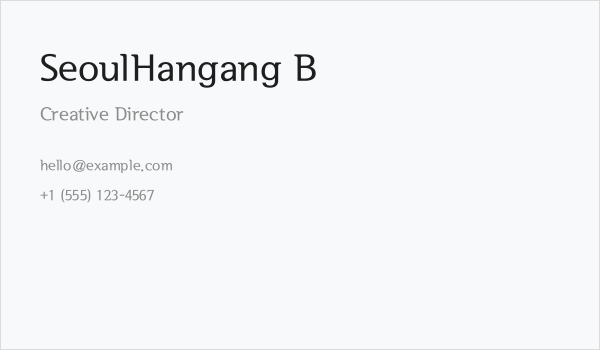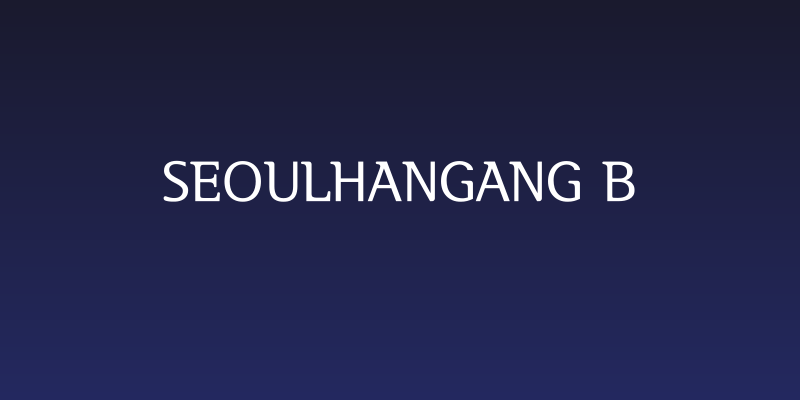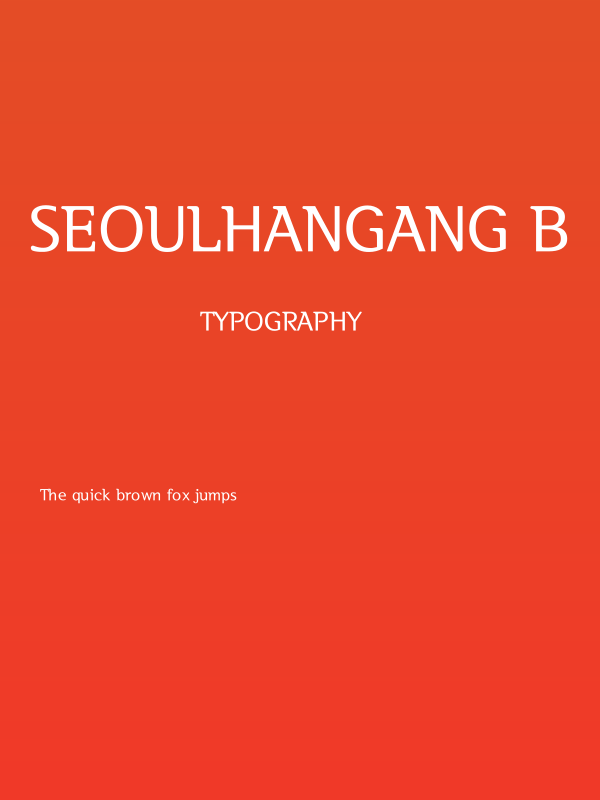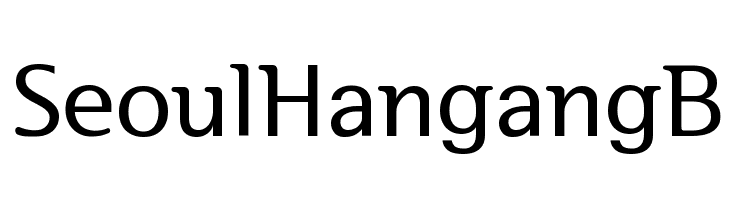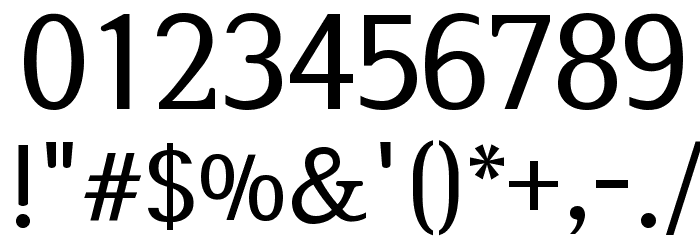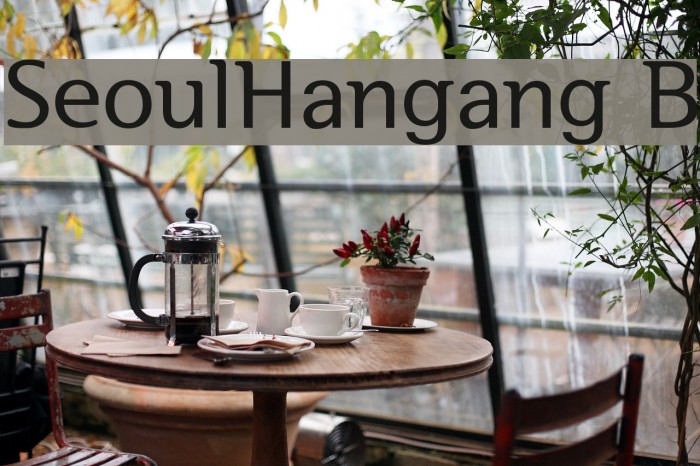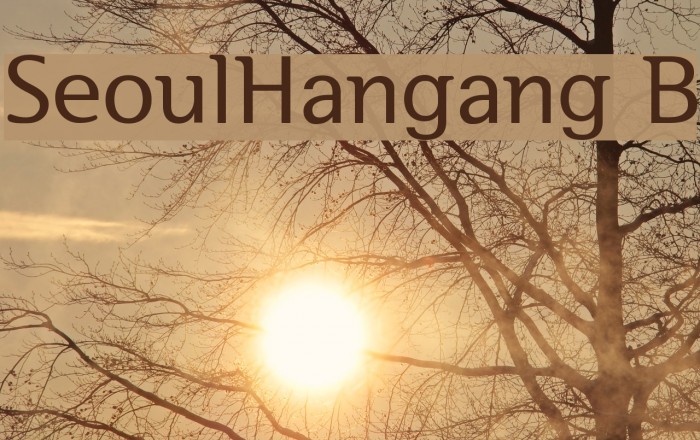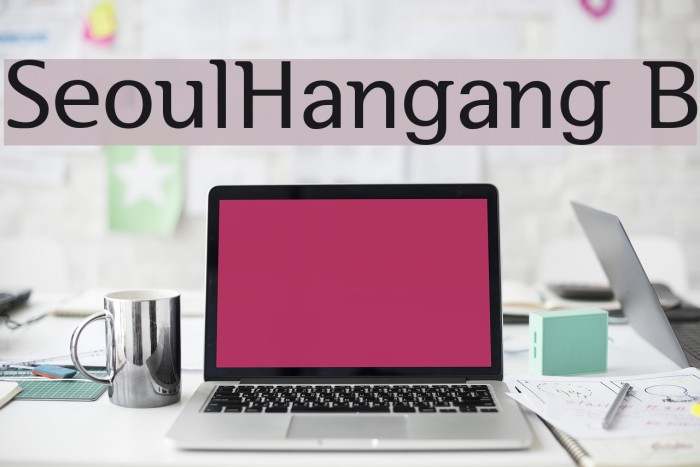
SeoulHangang B Font
SeoulHangang B Description
This font exhibits a clean and modern serif style, characterized by its balanced proportions and elegant curves. The uppercase letters are bold and commanding, while the lowercase letters maintain a harmonious flow. The numerals are clear and distinct, ensuring readability. Special characters are well-integrated, providing versatility for various design needs. The overall design is sophisticated, making it suitable for both digital and print media.
| Use Case | Headlines, Body text, Logos |
| Proposed Projects | Ideal for editorial design, branding, and corporate identity projects. |